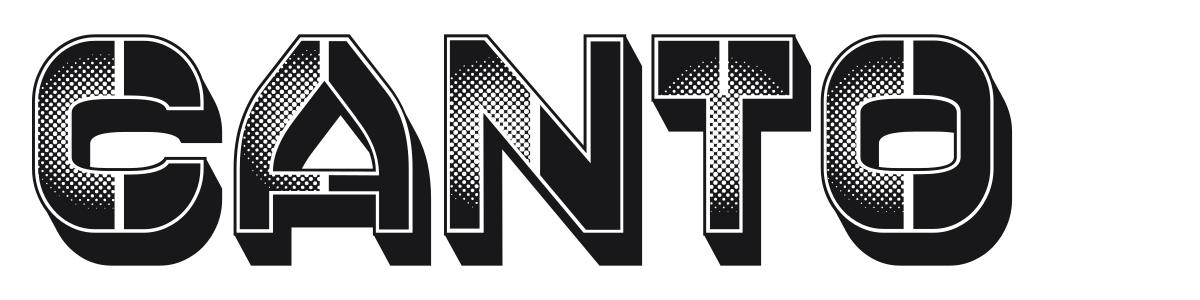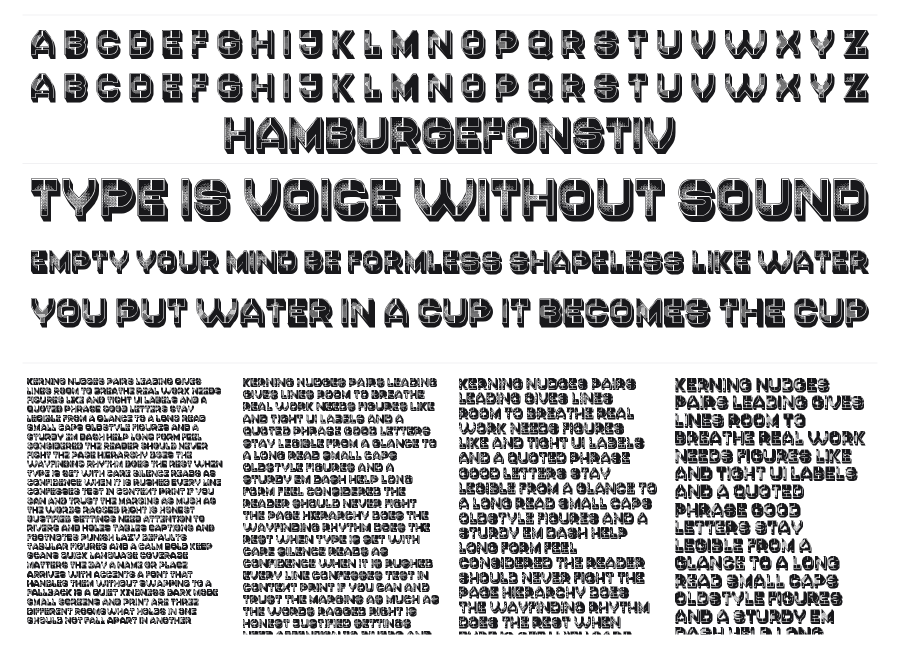
Canto
Canto is a chunky retro display font built around a chromatic inline-and-shadow construction that looks pulled straight from a 1970s concert poster. The layered design stacks horizontal ruling, a bright inline, and a deep block shadow into a single heavyweight form. It commands attention at large sizes and brings instant vintage energy to headlines and packaging.